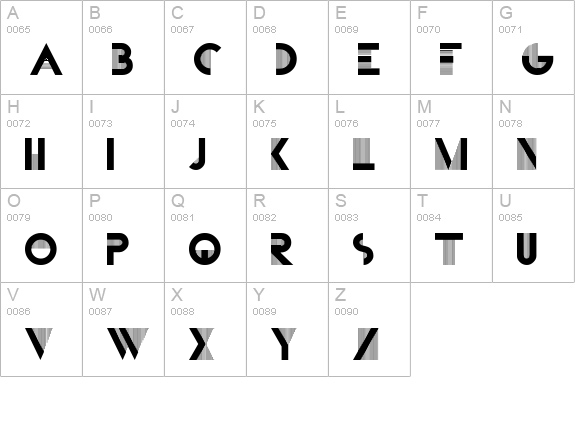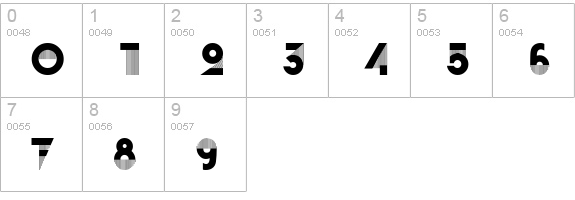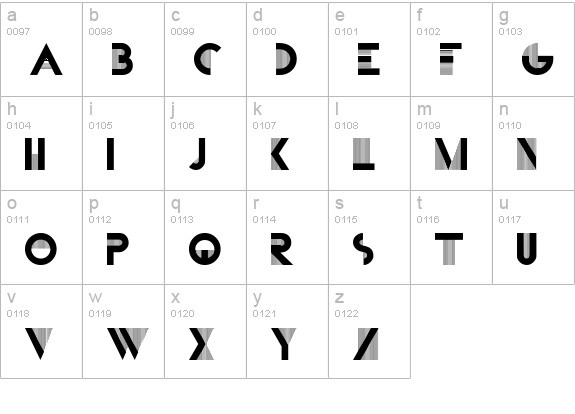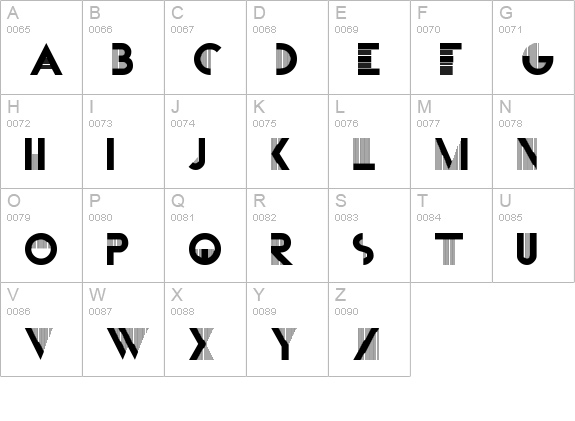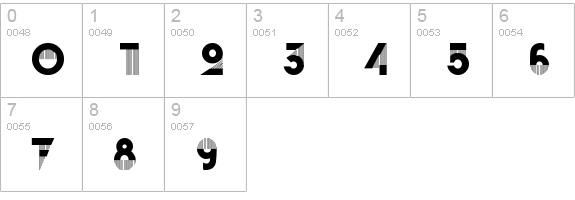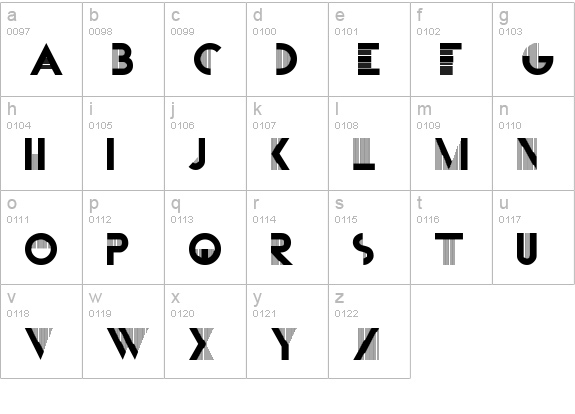
Bifur Font Details
Bifur font is a bold and eye-catching typeface that exudes a sense of strength and modernity. Its unique letterforms are characterized by sharp corners and geometric shapes, giving it a distinctive and edgy look. Bifur font is perfect for headlines, posters, branding, and any design project that requires a touch of boldness. The best part about Bifur font is that it is available for free download at FontsMarket.com. This means you can easily access this striking typeface and use it in your projects without any cost. Don't miss out on the opportunity to add Bifur font to your design arsenal and make a statement with its bold and impactful style. Download it now and let your creativity shine!